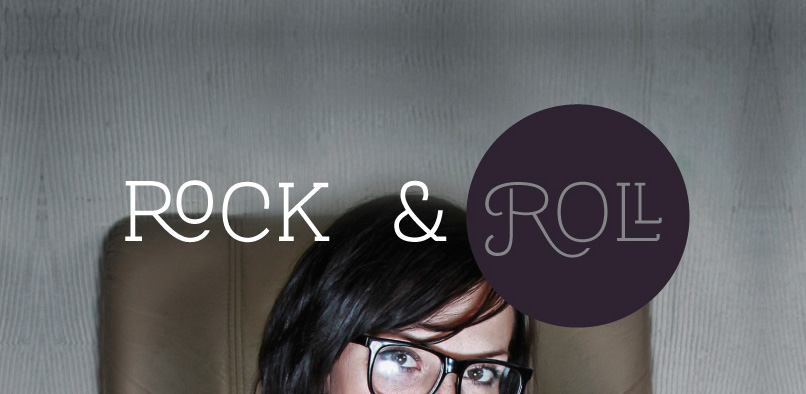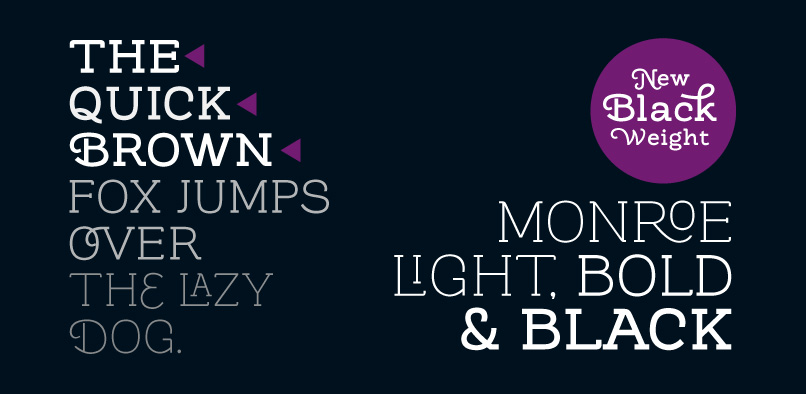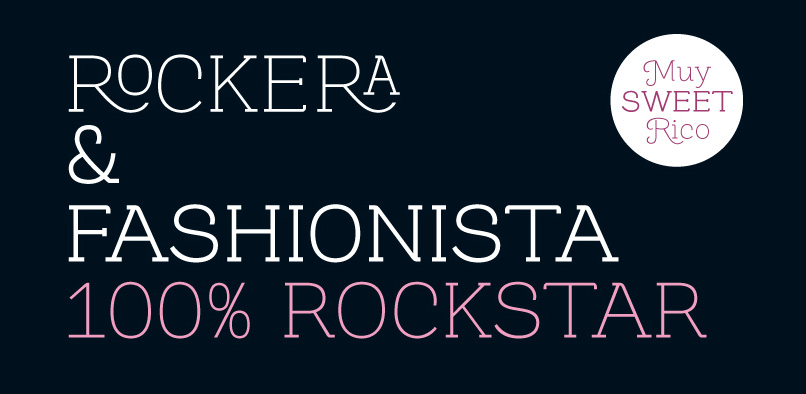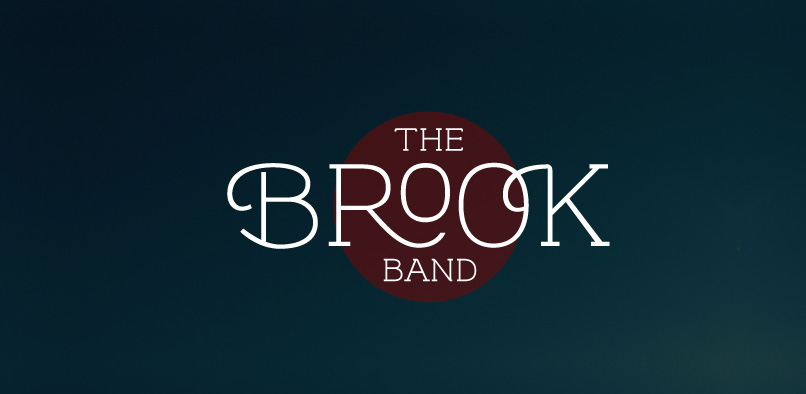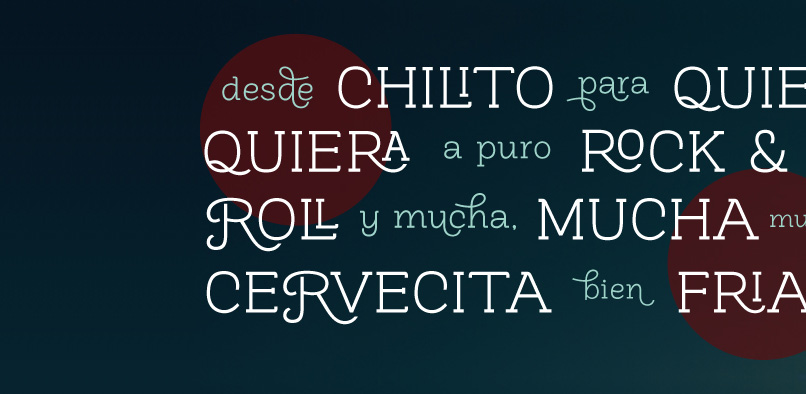
Fashionable and Rocker, Monroe is a font that can be given different uses for its wide variety of alternate types, which makes it an ideal font for titles, magazines, posters, logos, etc. Its main virtue is the endless number of possibilities that the font gives to write a word, text or paragraph.